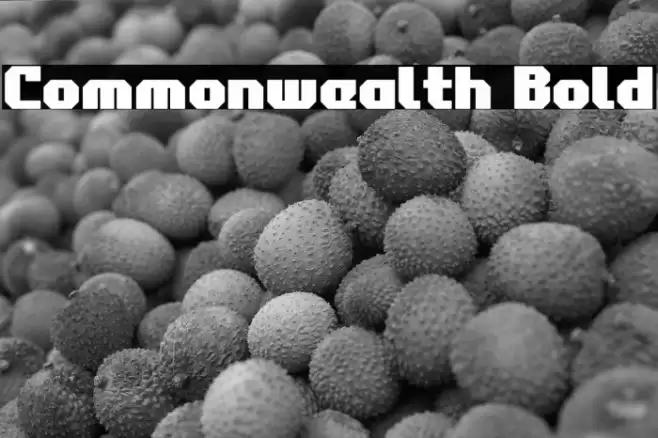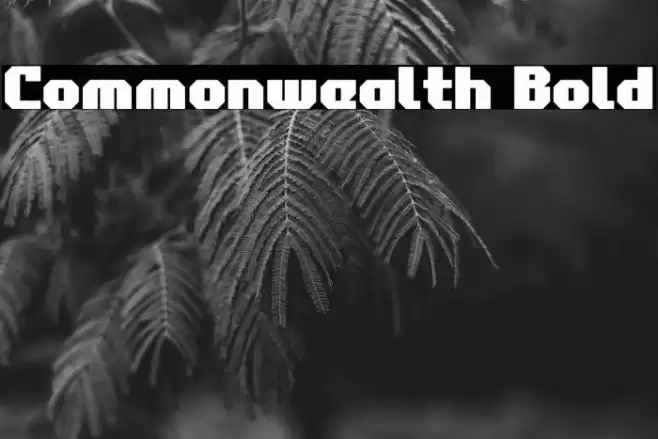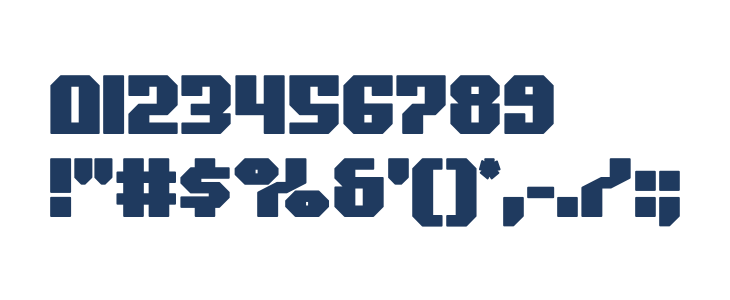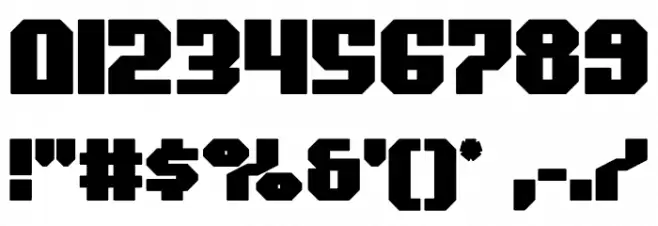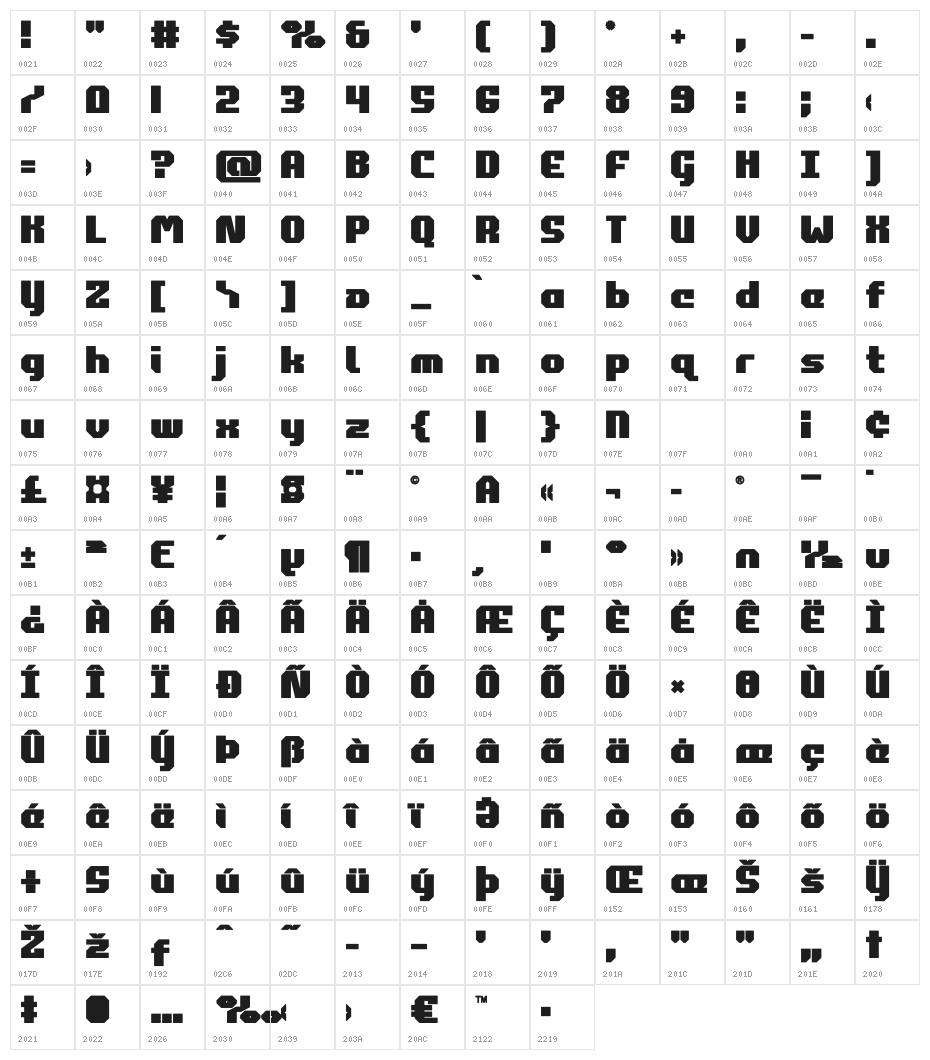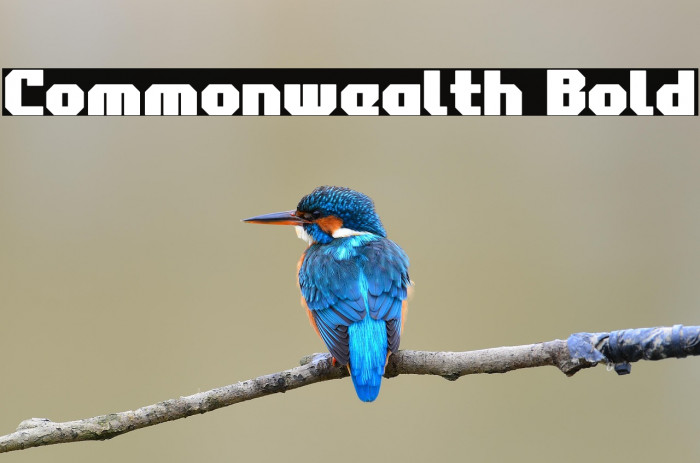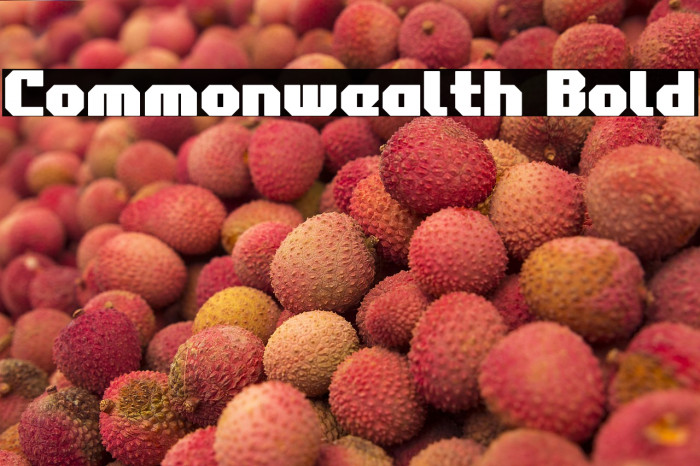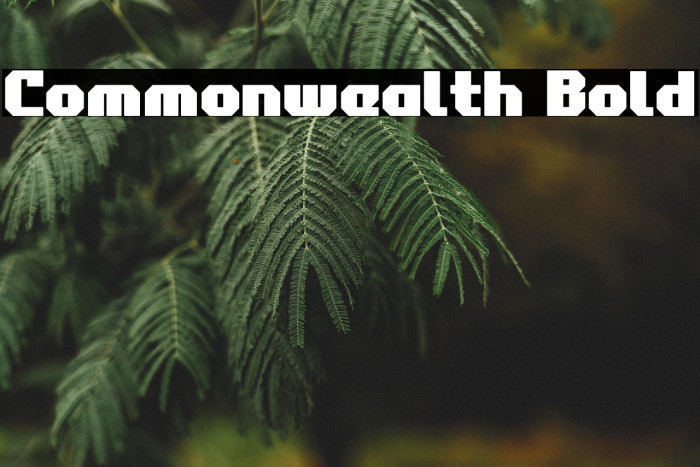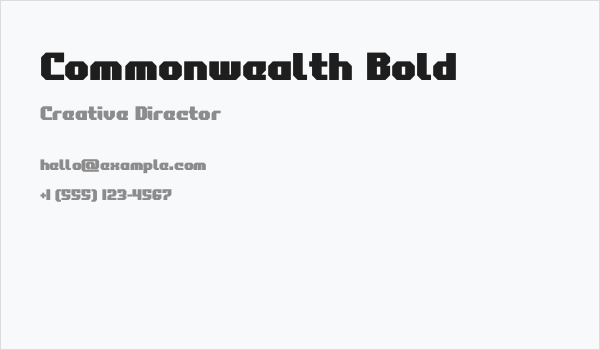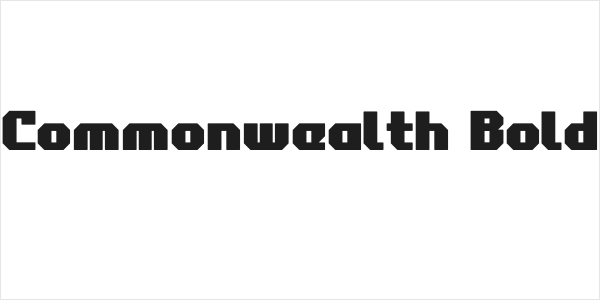
Commonwealth Bold Font
Commonwealth Bold Description
This font features a bold, geometric design with strong, angular lines and a blocky appearance. The characters are uniformly thick, giving it a robust and impactful presence. Its uppercase and lowercase letters maintain a consistent style, with sharp edges and a modern aesthetic. The numerals and special characters follow the same design principles, ensuring a cohesive look across all glyphs. This font's boldness and unique style make it stand out, suitable for attention-grabbing designs.
A bold, geometric font with strong, angular lines and a modern, blocky appearance from Uncategorized fonts.
- Proposed Projects: Ideal for posters, headlines, branding, and any design requiring a strong visual impact.